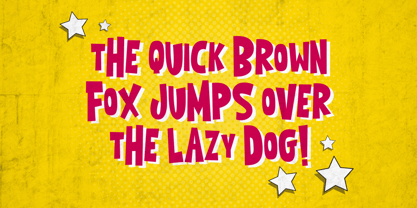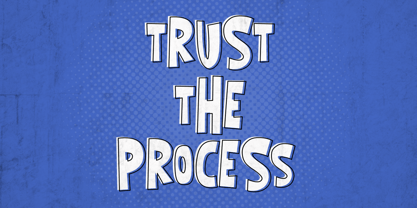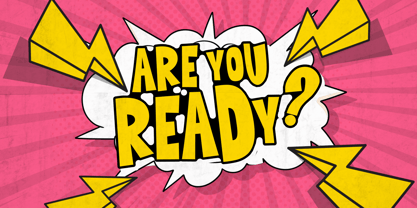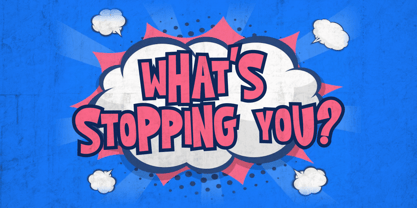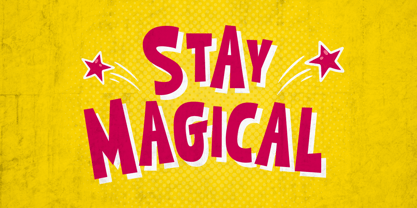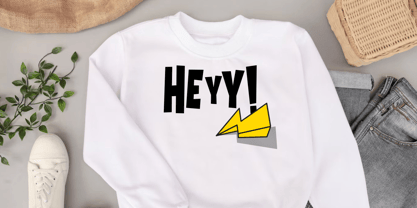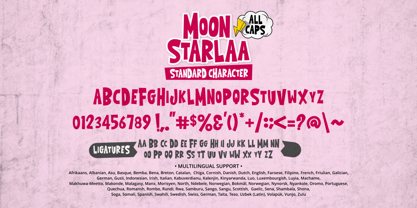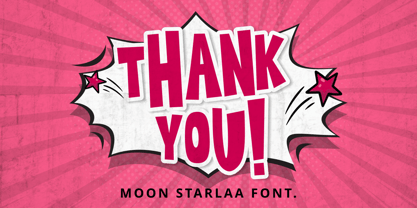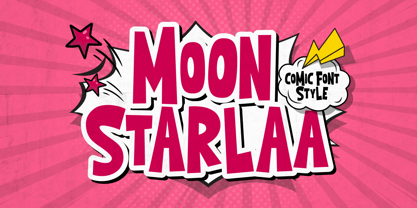
Moon Starlaa
by Mabhal Studio
The Moon Starlaa Font Family was designed by Abdullah Mabhal and published by Mabhal Studio. Moon Starlaa contains 1 styles.
Moon Starlaa is a bold and energetic comic-style display font designed to bring excitement and personality to your creative projects. With its playful, hand-drawn aesthetic and thick, highly legible strokes, this font is ideal for comic books, children's posters, gaming graphics, and social media content. It captures a classic pop-art vibe, making it perfect for loud headlines and action-packed titles. Add a dynamic and fun touch to your designs with this versatile typeface.
Designers: Abdullah Mabhal
Foundry: Mabhal Studio